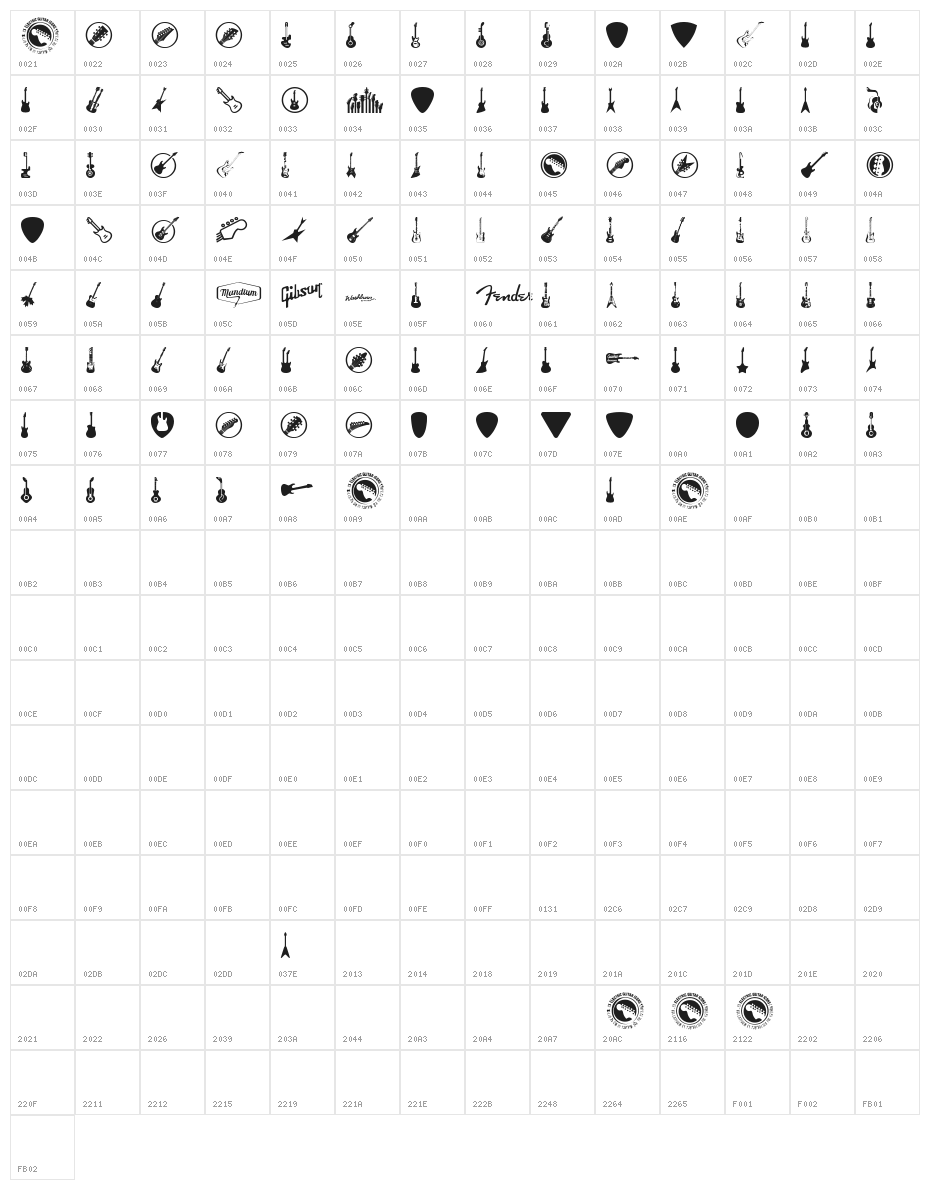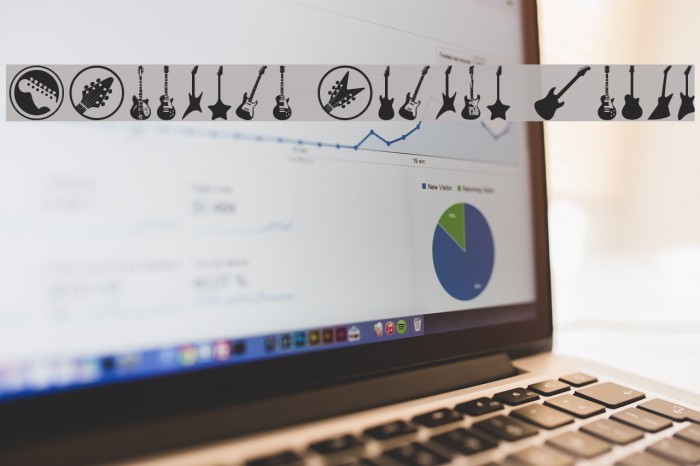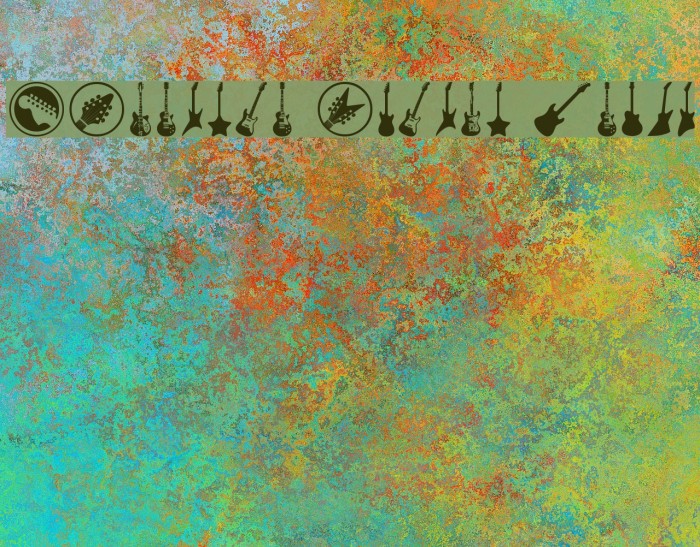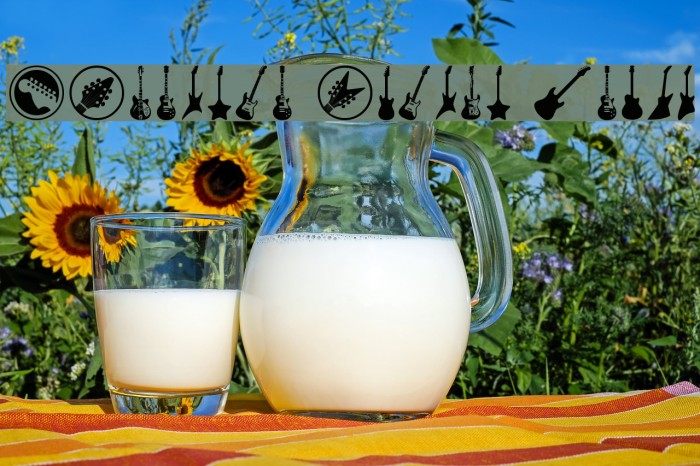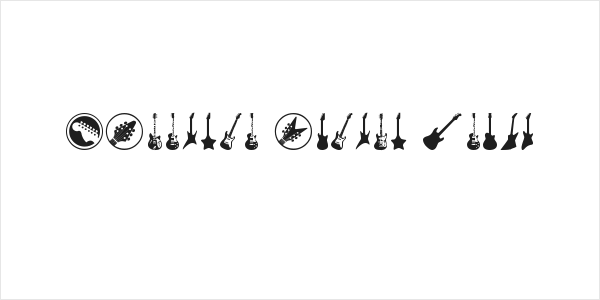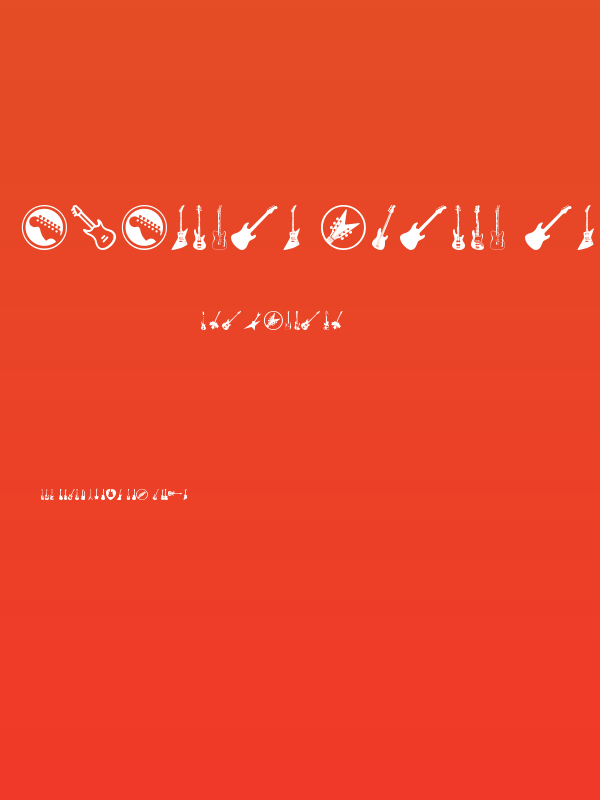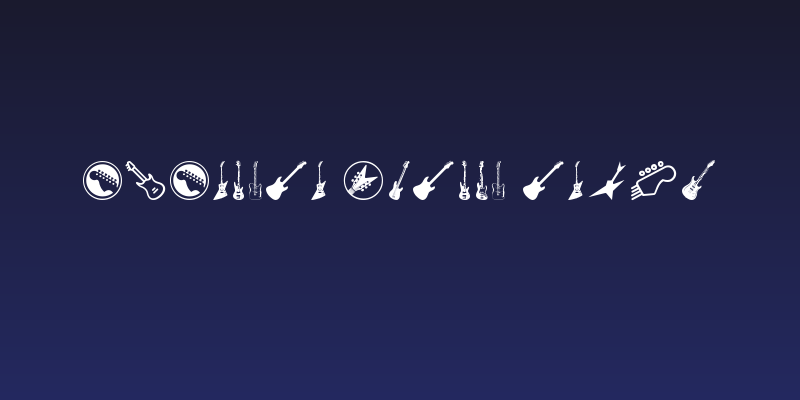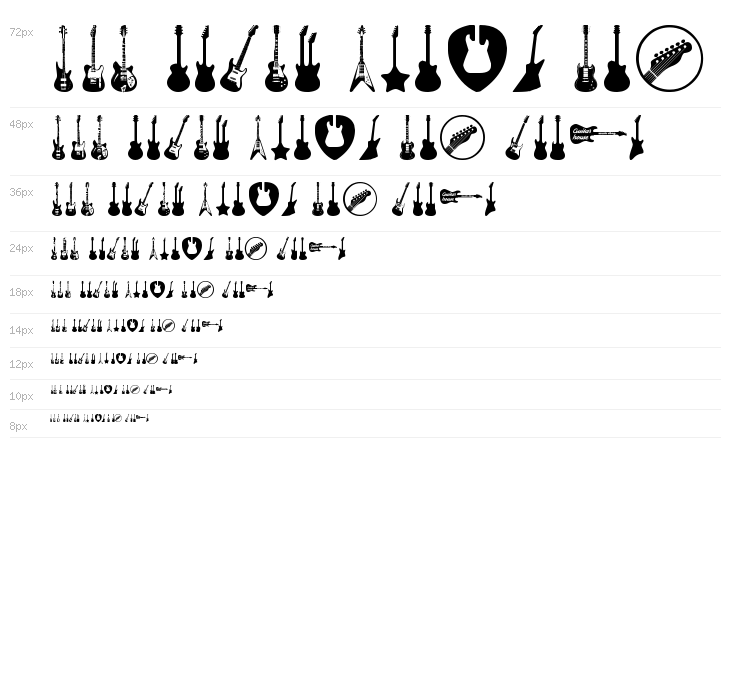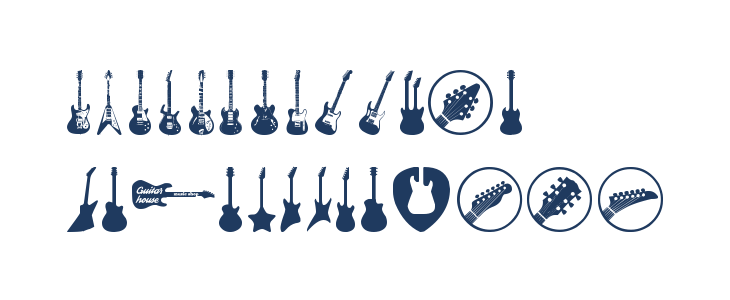
Electric Guitar Icons Font
Electric Guitar Icons Description
A collection of electric guitar and guitar pick icons in various styles, featuring silhouettes, outlines, and circular badge designs. The icons range from simple and minimalistic to more detailed and stylized representations of guitars and related elements.
| Overall Style | Decorative, Modern, Playful |
| Use Case | Logos, Icons, Posters, Stickers, Branding |
| Proposed Projects | Music event posters, band logos, music app UI, merchandise, educational materials, website icons. |